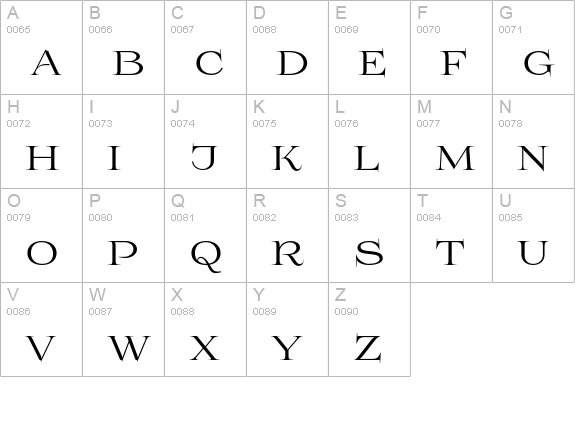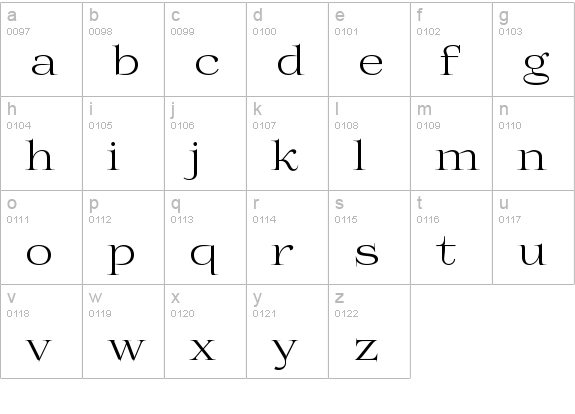
Prida01 Font Details
Introducing Prida01, a captivating font that effortlessly combines elegance with modernity. This exquisite typeface is perfect for adding a touch of sophistication to any design project. With its clean lines and graceful curves, Prida01 exudes a sense of refined luxury. Whether used in headlines, logos, or body text, this font is sure to make a lasting impression. Its versatility allows it to be utilized in a wide range of design contexts, from corporate branding to editorial layouts and everything in between. What makes Prida01 even more remarkable is its availability as a free download exclusively at FontsMarket.com. That's right, this stunning font can be yours without any cost, making it a valuable resource for designers, students, and anyone seeking to enhance their creative endeavors. Prida01's unique charm lies in its ability to effortlessly blend into various design styles. Its timeless appeal ensures that it will remain a relevant choice for years to come. So why wait? Head over to FontsMarket.com and discover the beauty and versatility of Prida01 today.